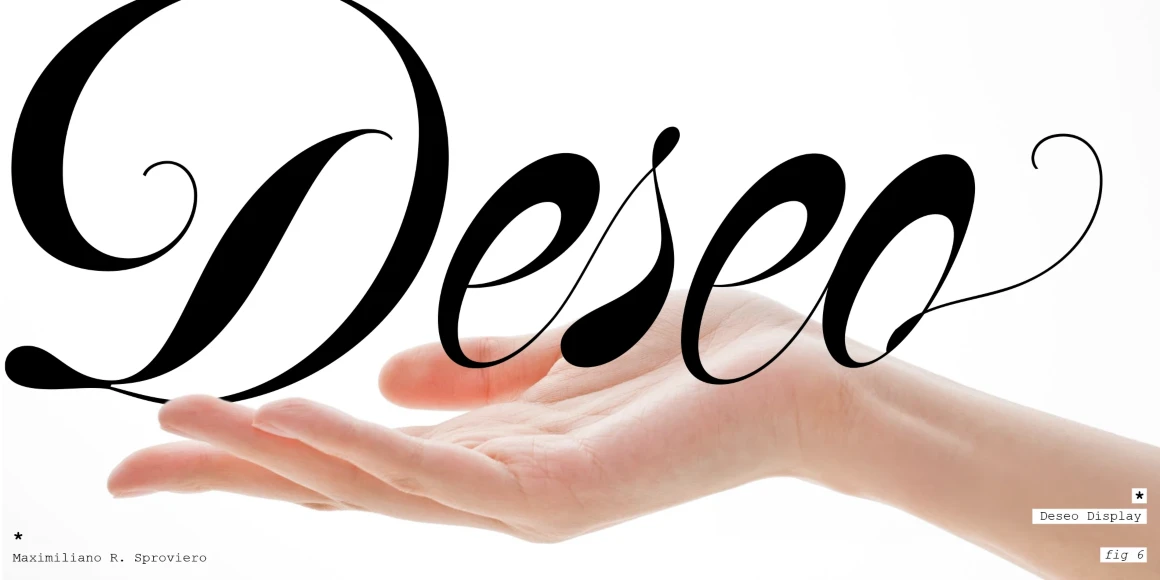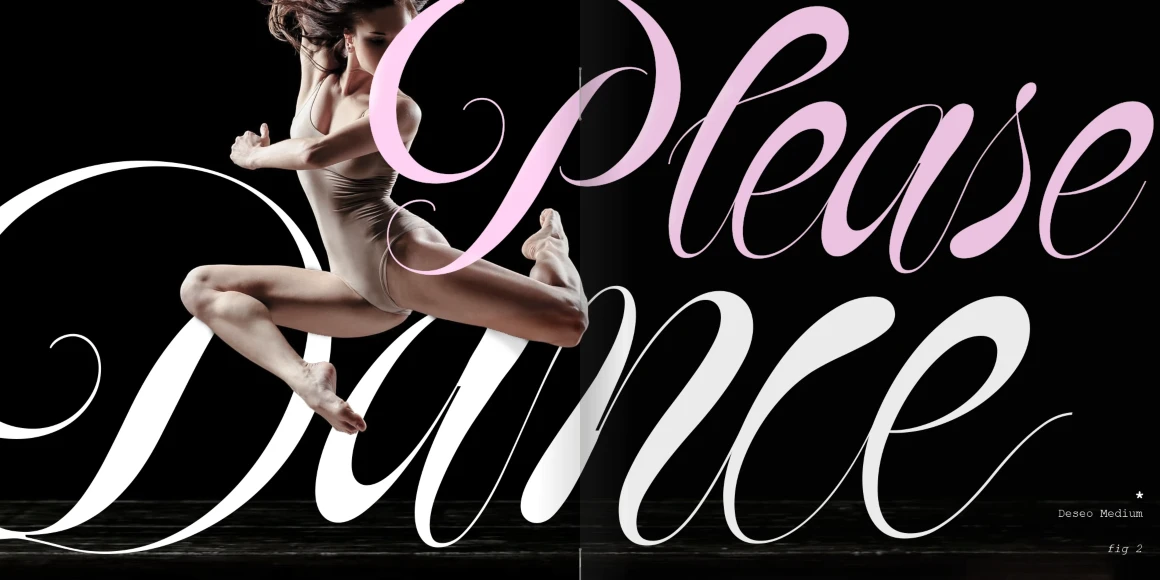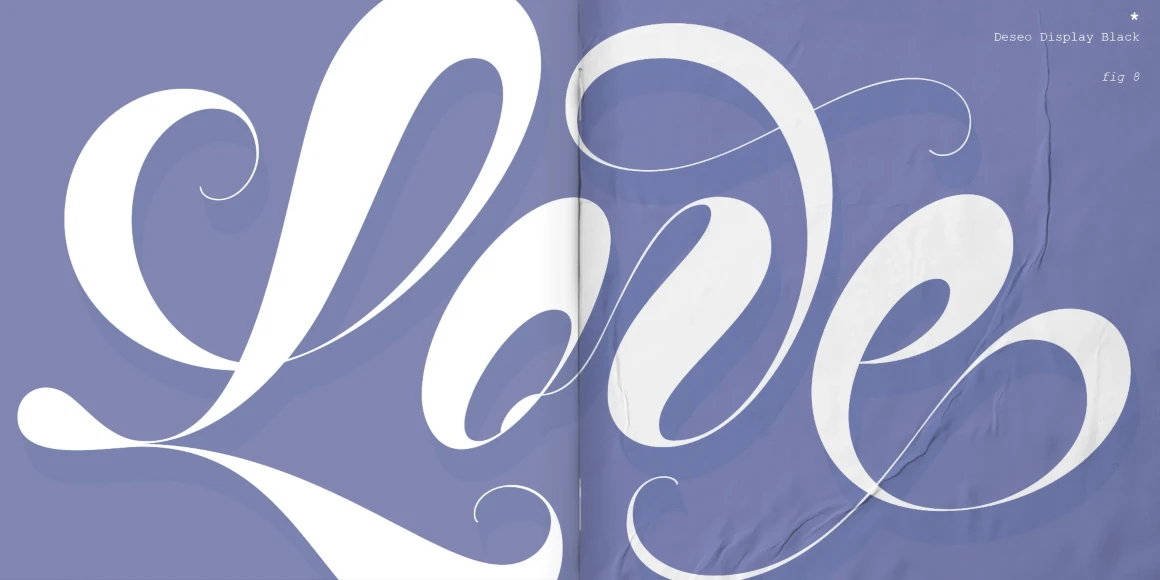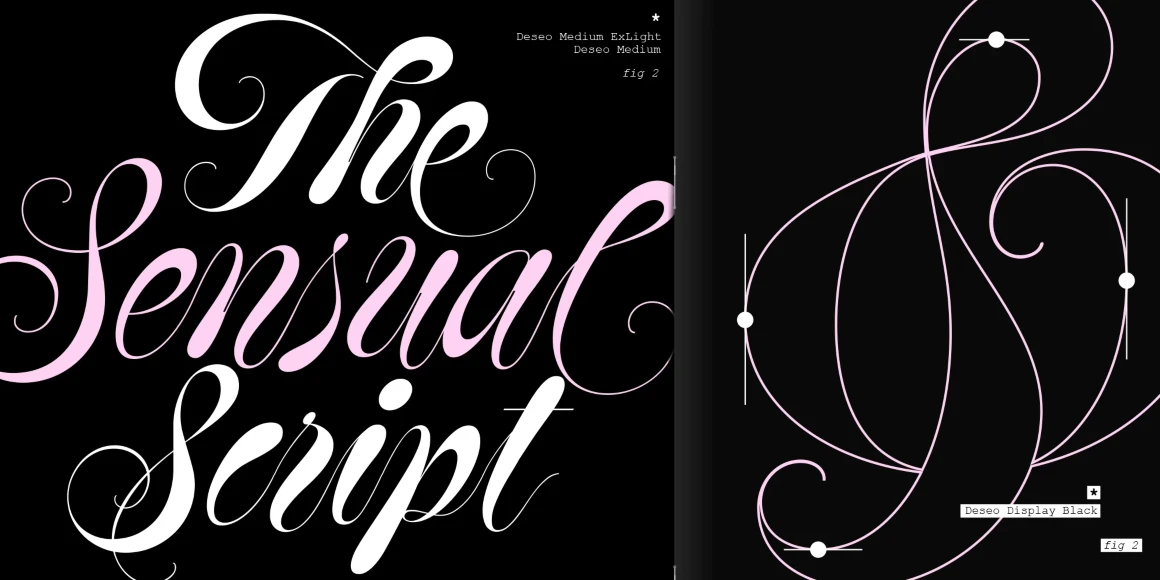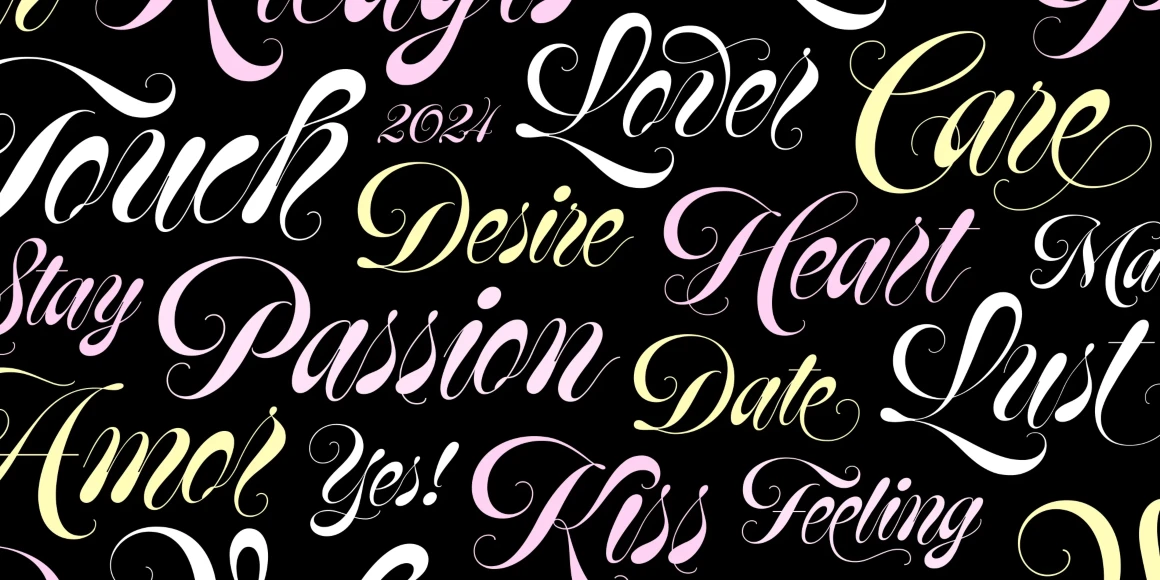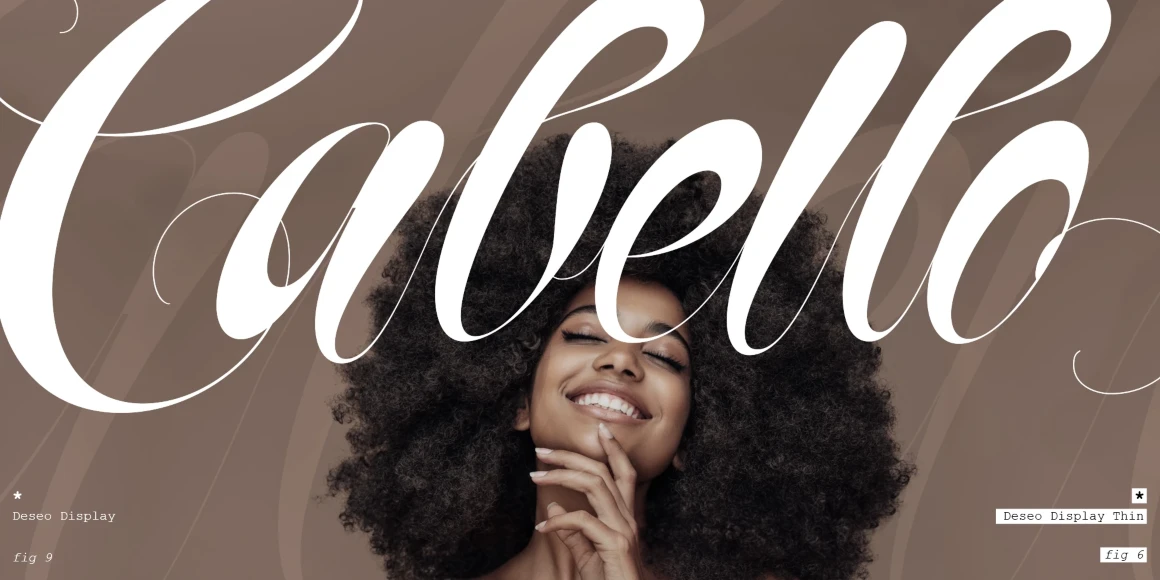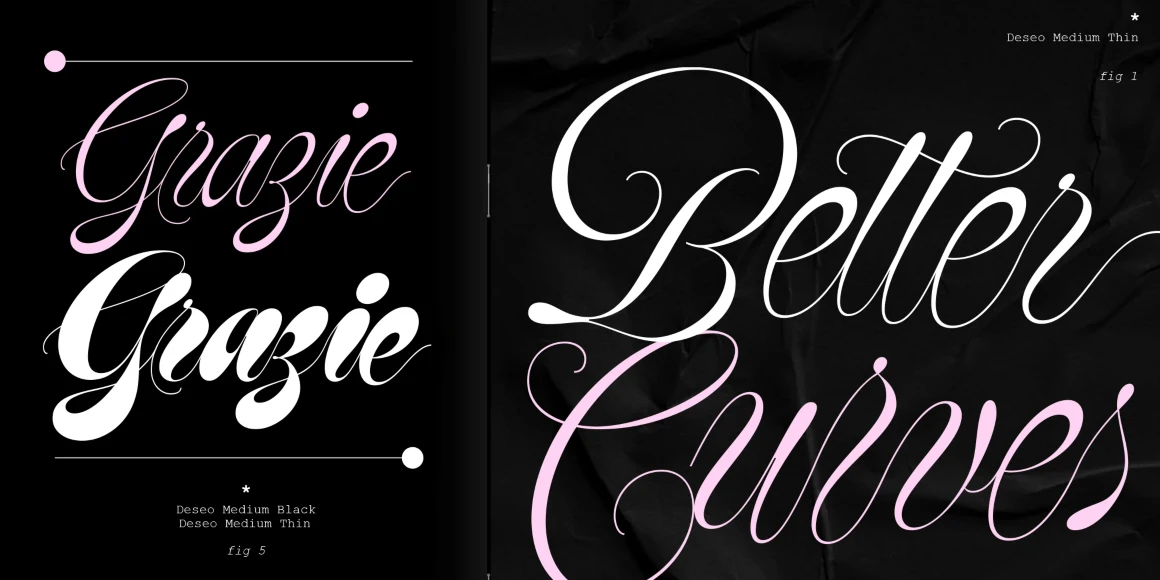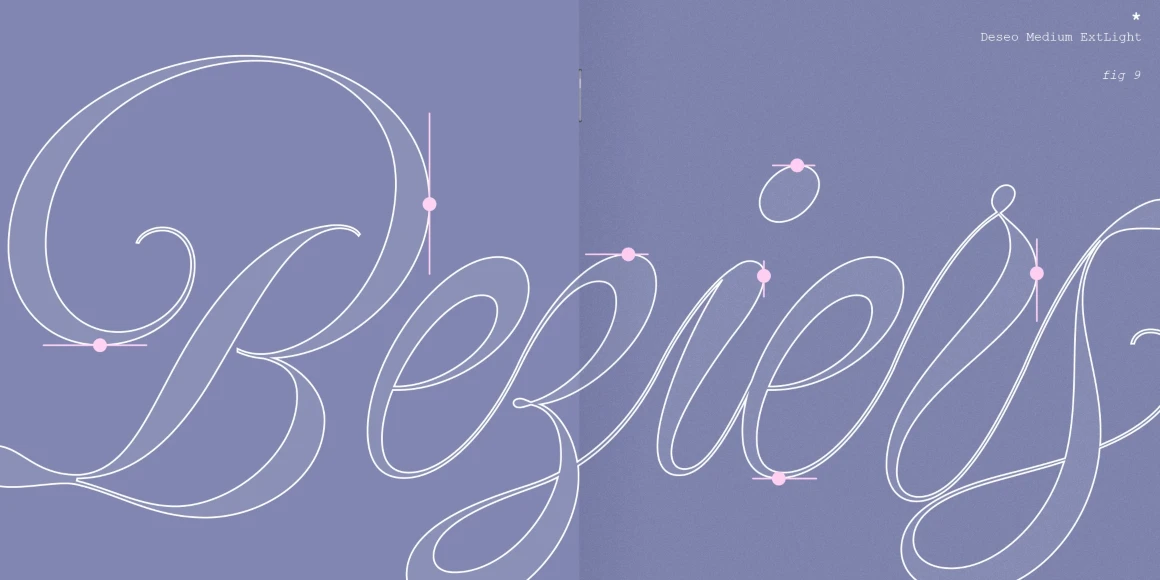
Deseo
Deseo Variable
Deseo is an artfully exaggerated Spencerian script inspired by the 20th-century masters. Depending on context, it also pays homage to the nuances of the Italian Hand’s sophisticated elegance with its dynamically shifting strokes. Follow the sinuous contrast and curves. With several alternates for each character, plus additional ornamental flourishes, creating display typography that seduces and allures the reader will be no challenge. Deseo is a variable font with 3 axis: weight, size, and accolades.